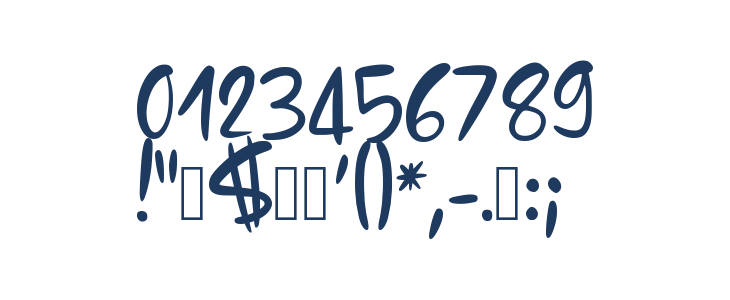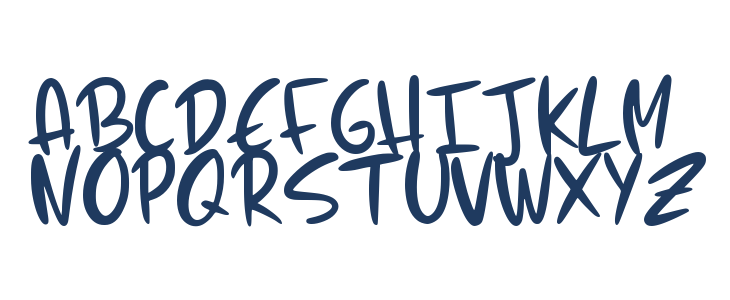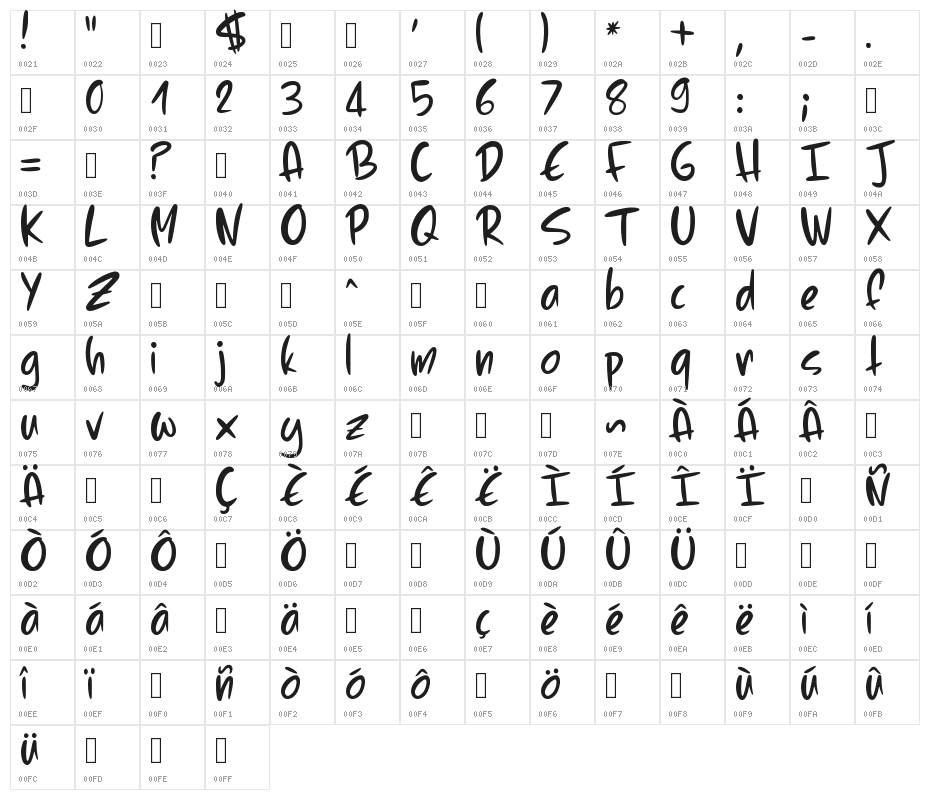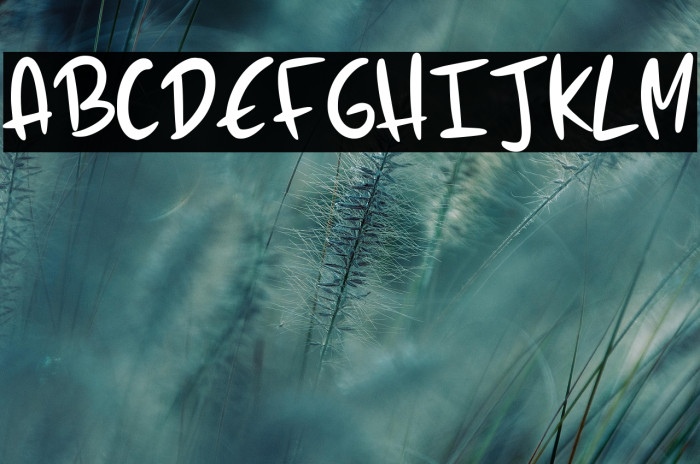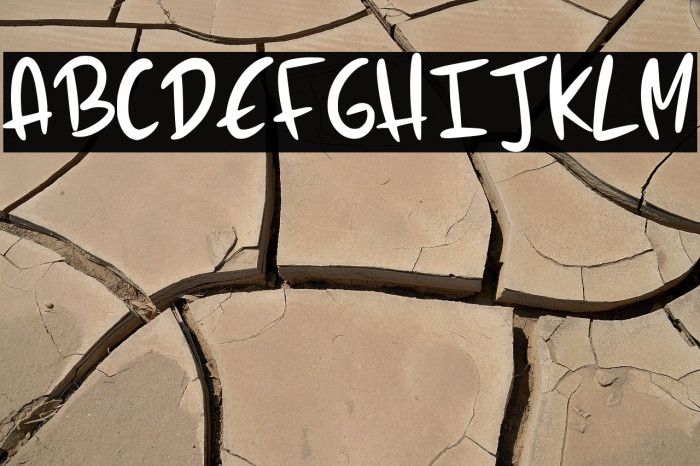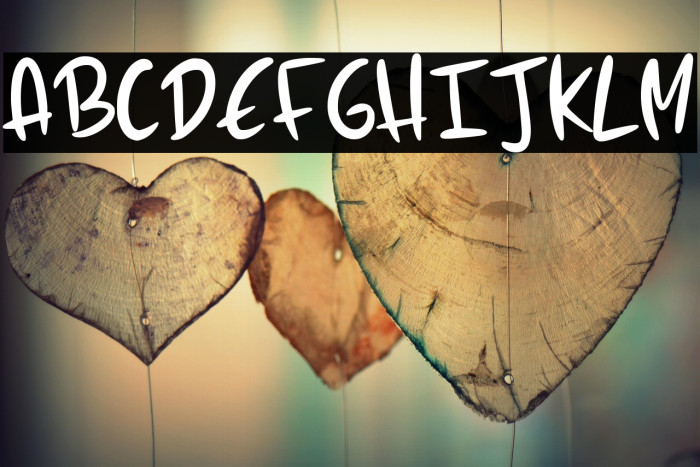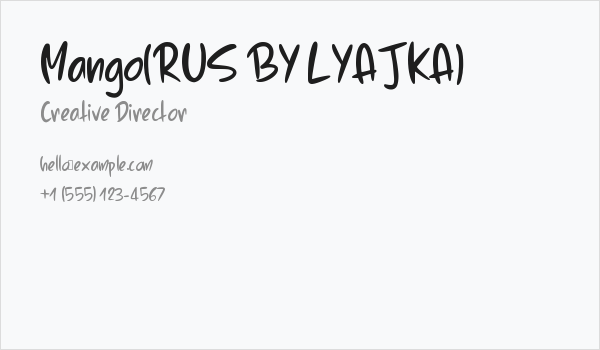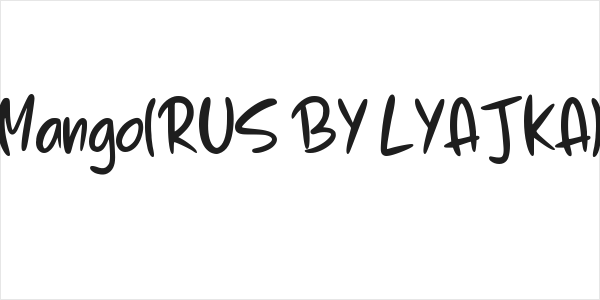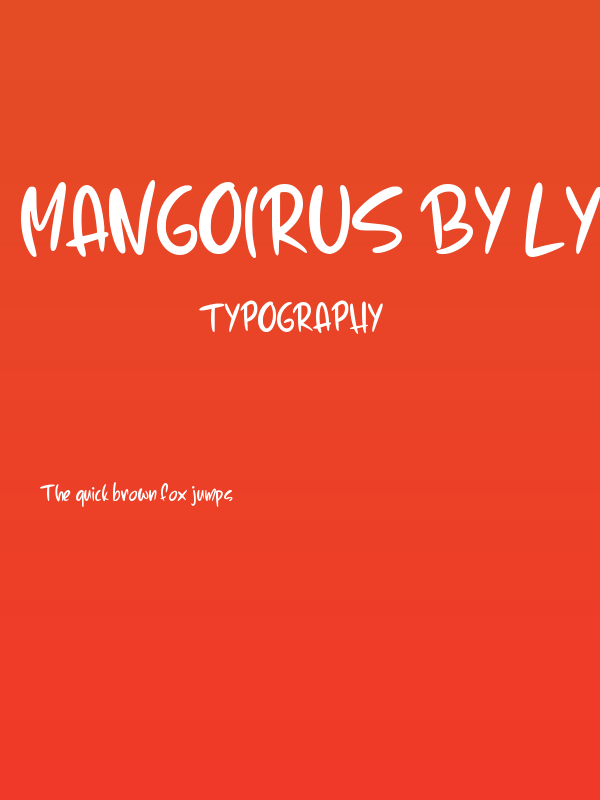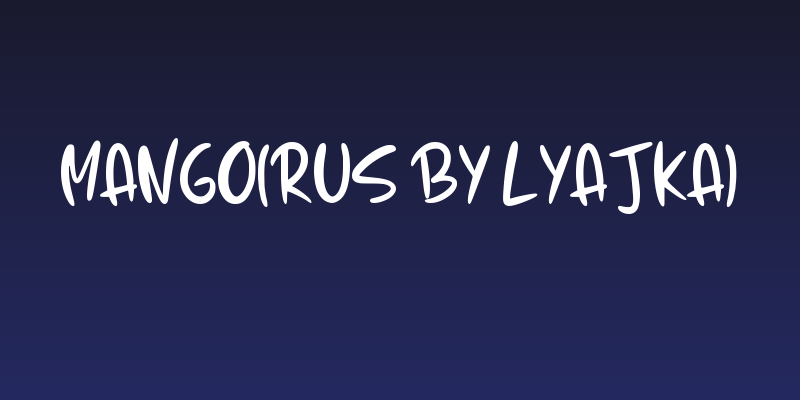
Mango(RUS BY LYAJKA) Font
Mango(RUS BY LYAJKA) Description
This font features a playful and energetic handwritten style, characterized by its bold and slightly irregular strokes. The letters exhibit a casual, free-flowing form that gives off a friendly and approachable vibe. The uppercase and lowercase letters maintain a consistent style, with rounded edges and a slight slant that adds to the dynamic appearance. The numerals and special characters follow the same lively design, ensuring a cohesive look across all elements. This font is ideal for projects that require a personal touch or a sense of informality, such as invitations, greeting cards, or playful branding materials.